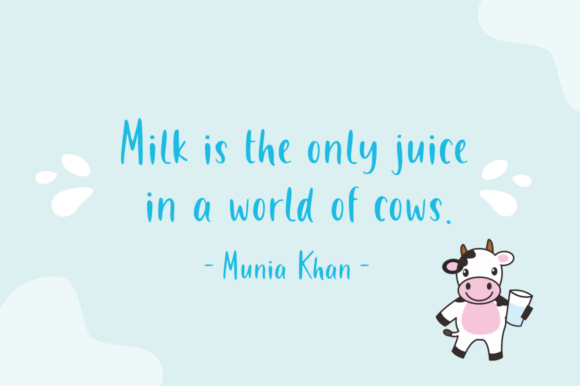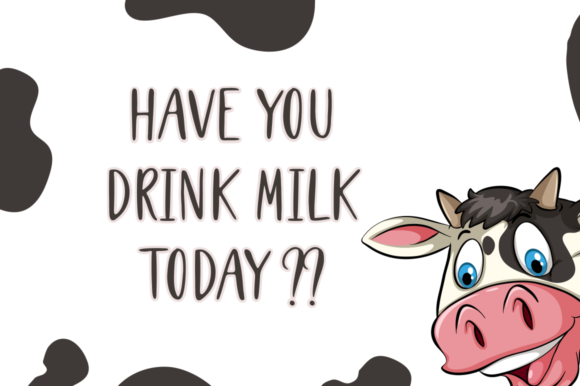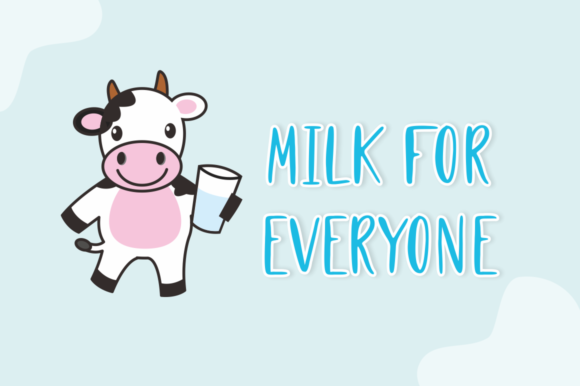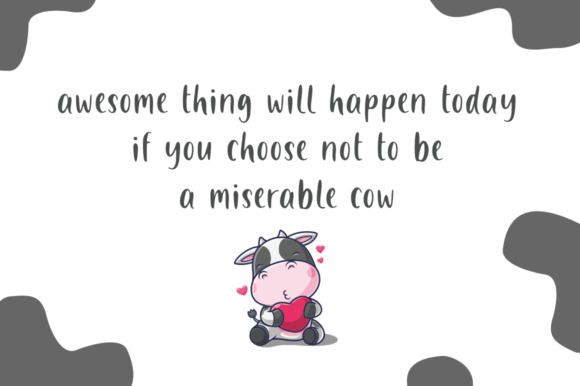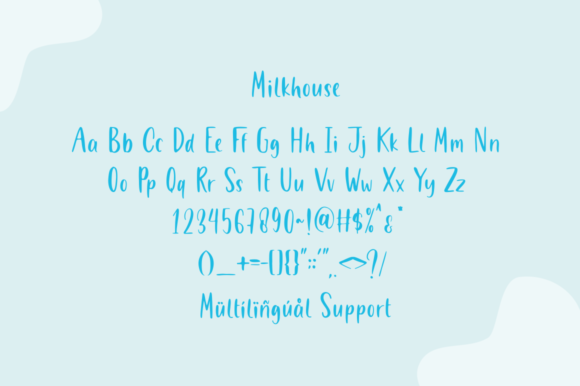
Introduction to Milkhouse Font
Have you ever found yourself rummaging through your design files, searching for the perfect font to match your creative vision? You know, that moment when everything falls into place, and your project starts to shine. For designers, discovering a high-quality font that perfectly captures the essence of their idea can be a game-changer.
This is exactly what the Milkhouse Font offers – a sweet and friendly handwritten font that’s as versatile as it is charming. Its natural and unique style makes it incredibly fitting to a large pool of designs, from creative projects that require a touch of whimsy to those that need a more subtle, yet elegant approach.
With its transparent background and high-quality design, the Milkhouse Font is a valuable design resource that’s sure to become a go-to for designers looking for a reliable and free download option.
Key Features of Milkhouse Font
- Features a unique, modern design style that sets it apart from other fonts in its category.
- Includes a wide range of characters, including uppercase and lowercase letters, numbers, and special characters.
- Designed to be highly legible at various resolutions and sizes, making it ideal for use in a range of creative projects.
- Perfect for designers and artists looking for a high-quality, free design resource to elevate their work.
Honest Review: Milkhouse Font
I recently had the opportunity to work with the Milkhouse Font, and I must say it’s been a game-changer for my creative projects. The font’s clean and modern design makes it perfect for a wide range of applications, from business cards to website headers.
One of the things that stands out about the Milkhouse Font is its high quality and versatility. It’s available as a free download, which is a huge plus for designers on a budget. Plus, the font’s transparent background makes it easy to use as a design resource, allowing me to layer it over images and other elements without any issues.
- ✨ Clean and modern design
- ✨ High quality and versatile
- ✨ Available as a free download
Of course, no font is perfect, and the Milkhouse Font is no exception. One limitation I’ve noticed is that it can be a bit too minimalist for some projects, so be sure to pair it with other design elements to add some visual interest.
Overall, I’m really impressed with the Milkhouse Font and would highly recommend it to anyone looking for a high-quality, free design resource.
Milkhouse Font
The Milkhouse Font is ideal for a variety of use cases, including: branding, packaging design, and social media graphics. Its unique style and high-quality design make it a popular choice among designers and creatives.